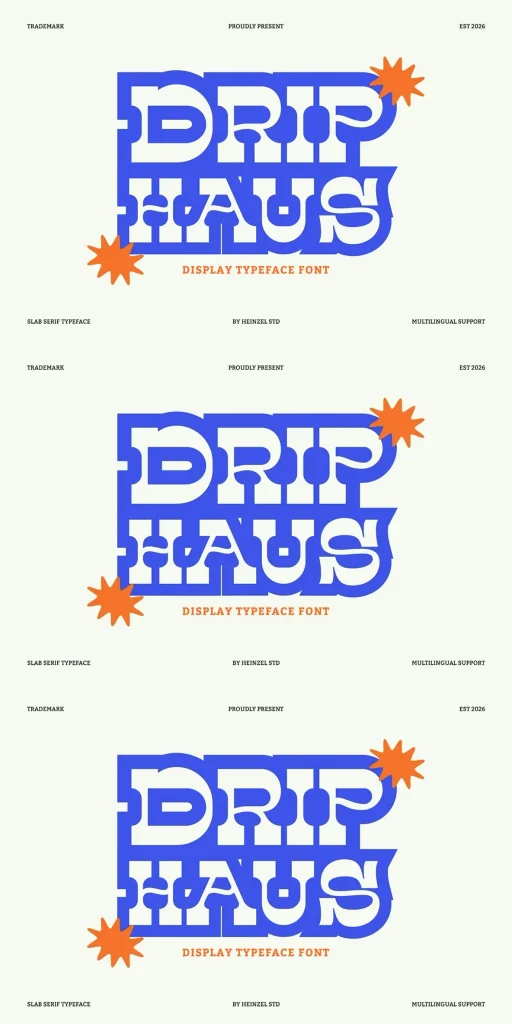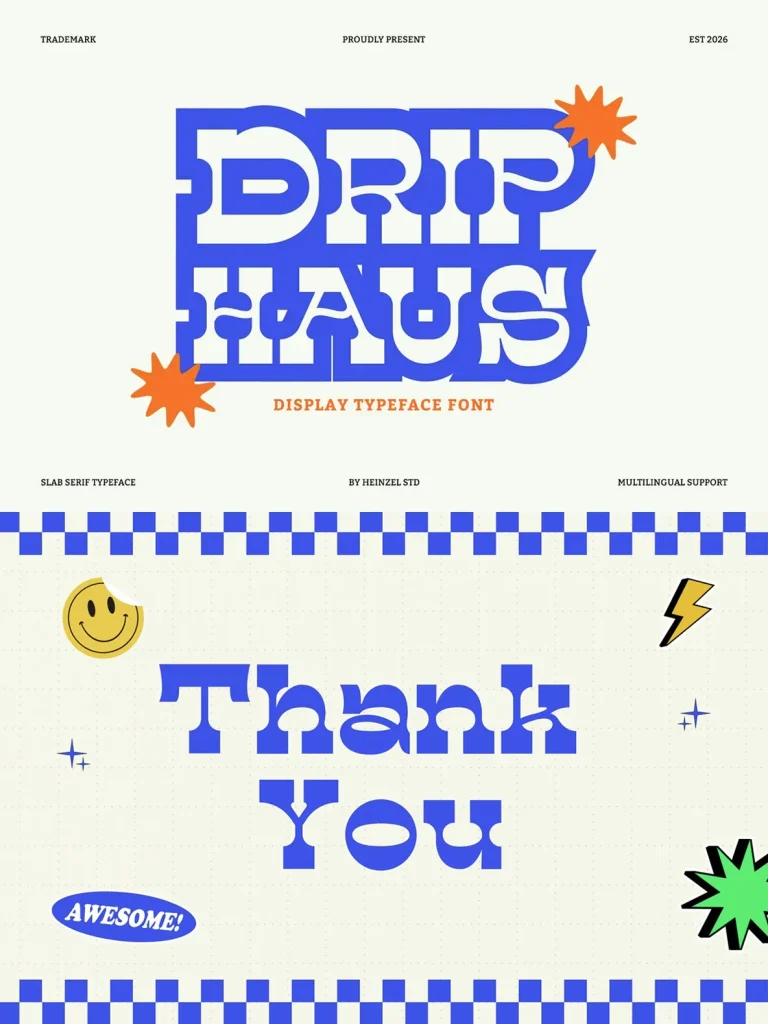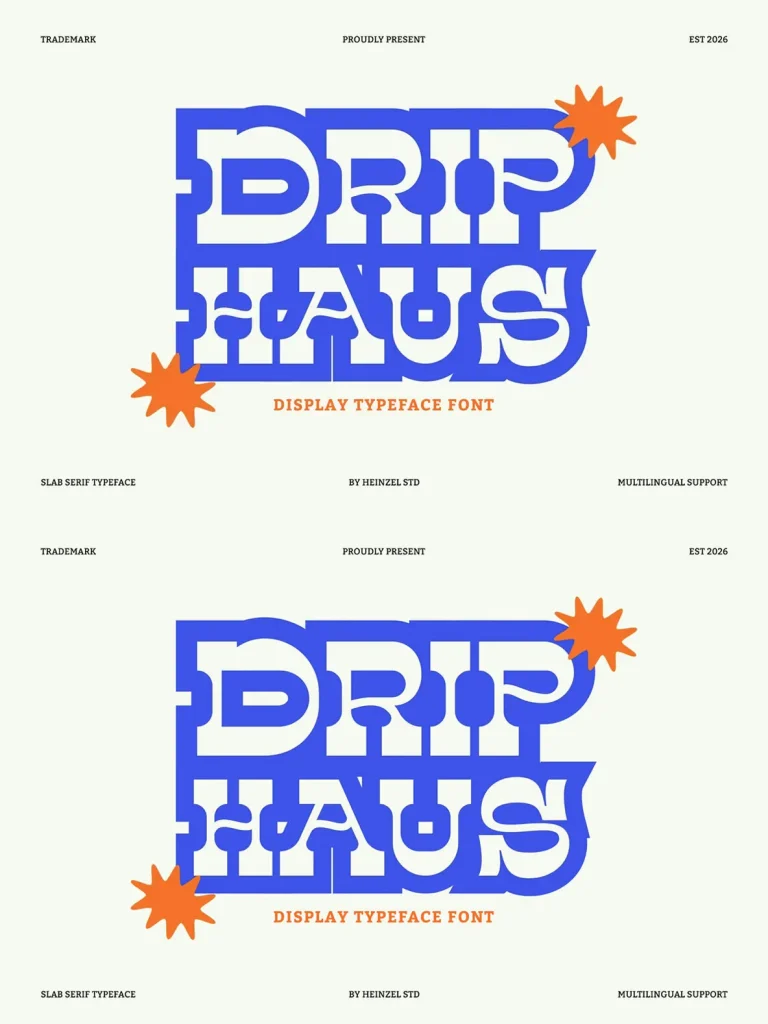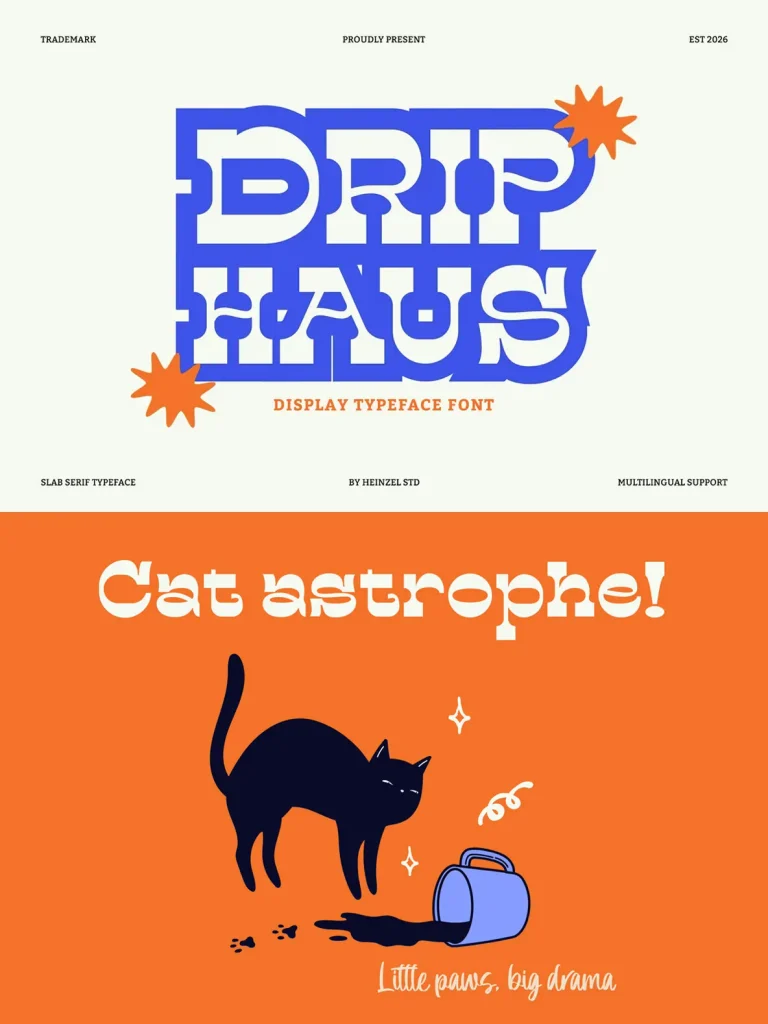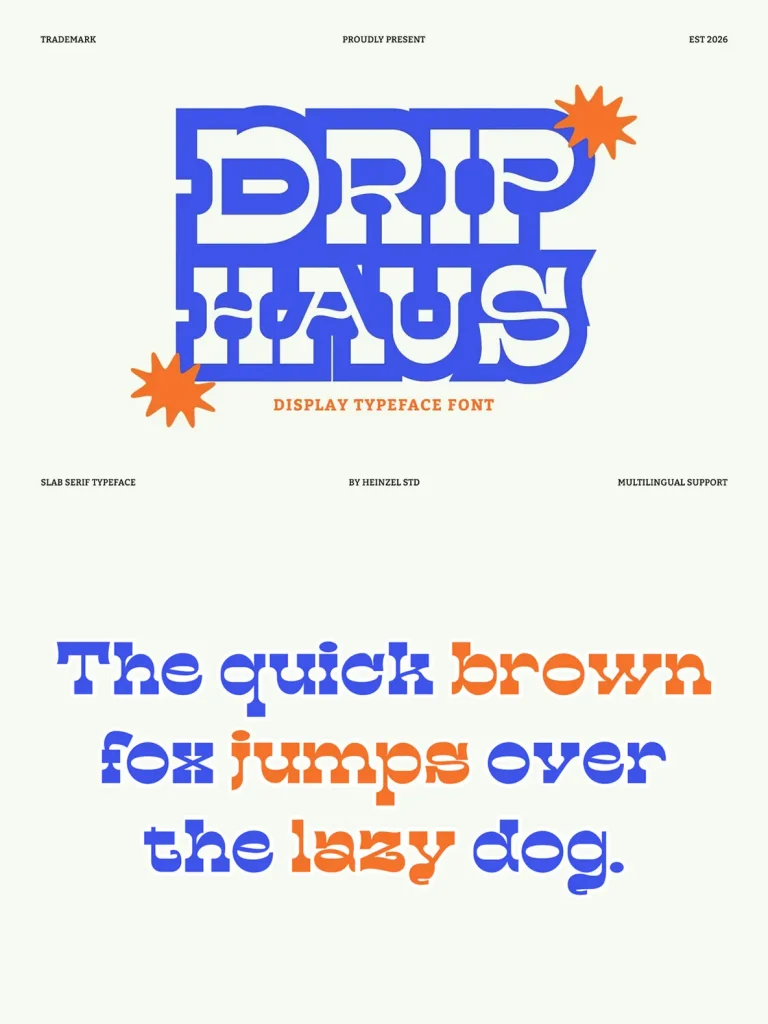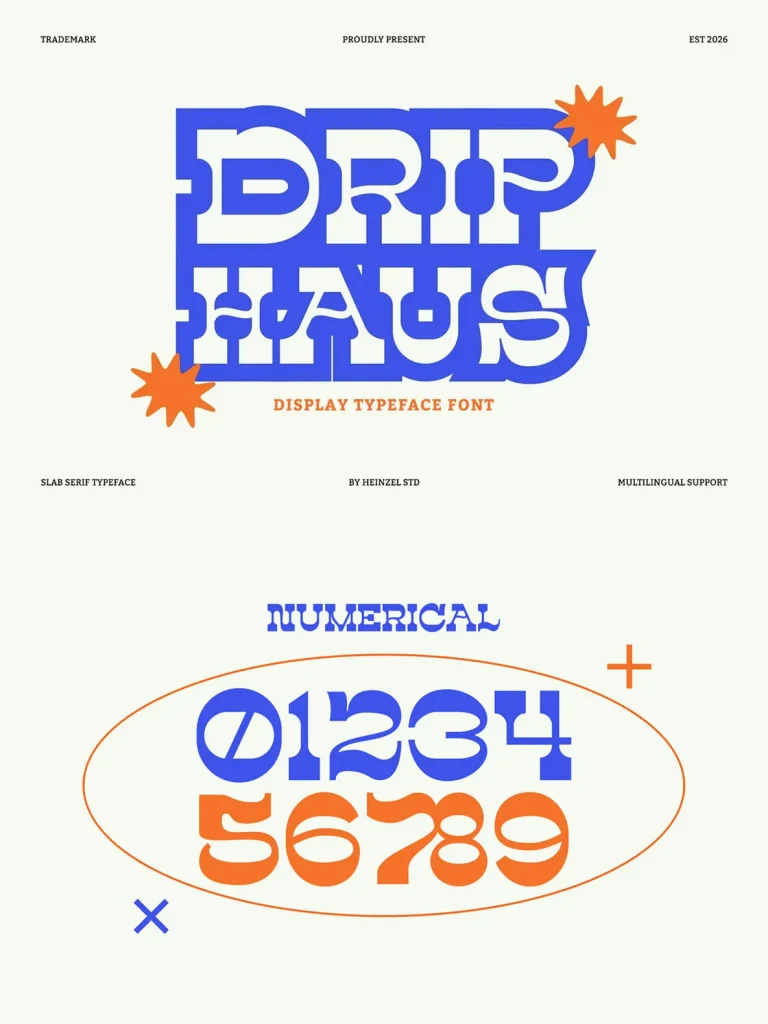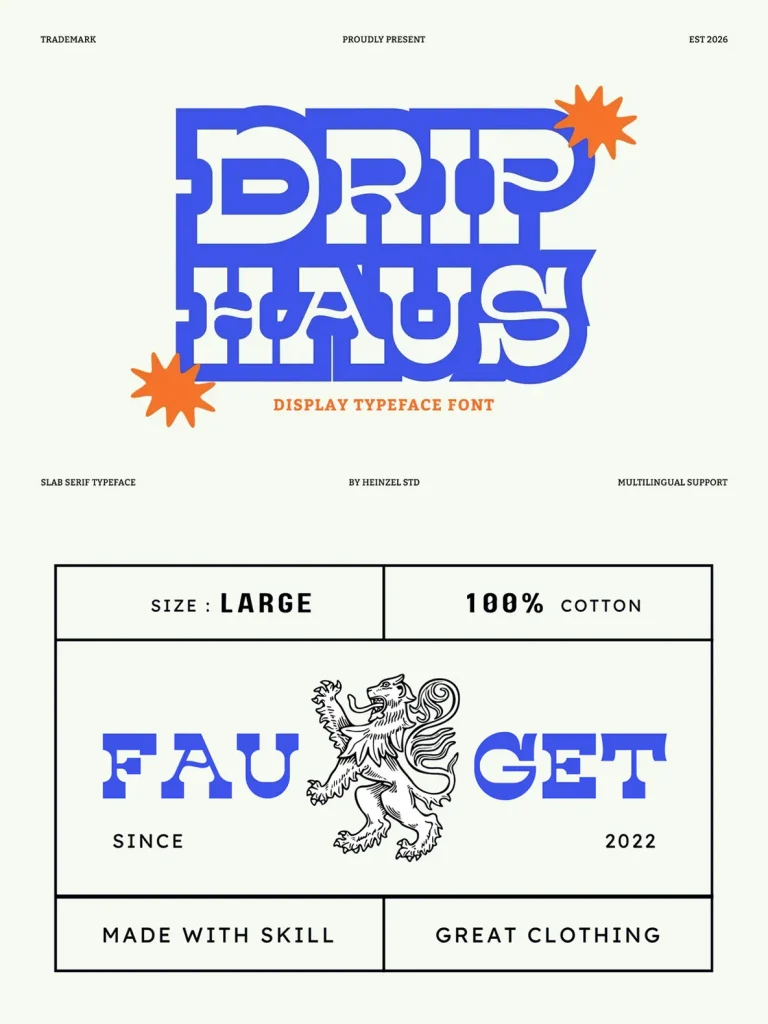
Drip Haus — Bold Retro Slab Energy
Drip Haus is a bold and expressive slab serif display font made for strong visual impact. Thick block serifs, distinctive retro-influenced letterforms, and a modern artistic twist give the typeface a confident voice with clear personality.
Its sturdy structure and eye-catching details bring vintage charm together with contemporary creativity. Drip Haus suits branding, logos, posters, packaging, apparel, social media graphics, editorial headlines, and merchandise design, giving each setting a memorable display presence.